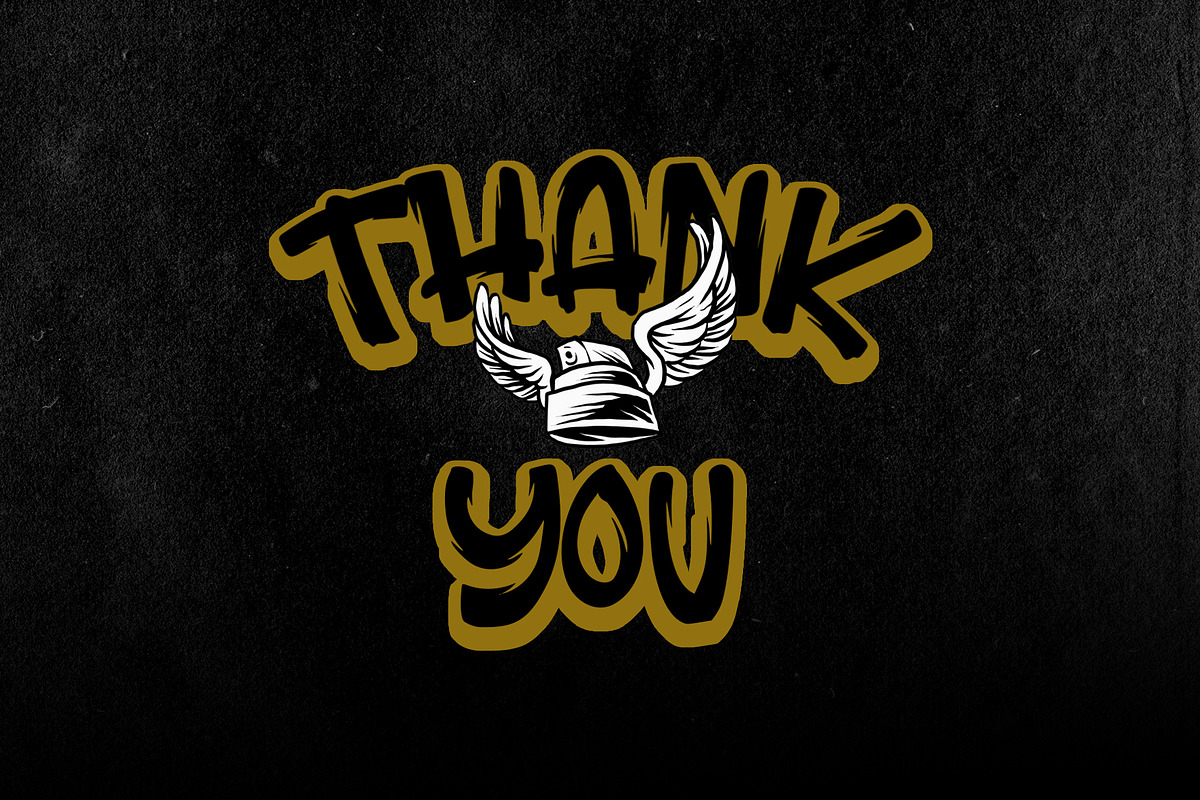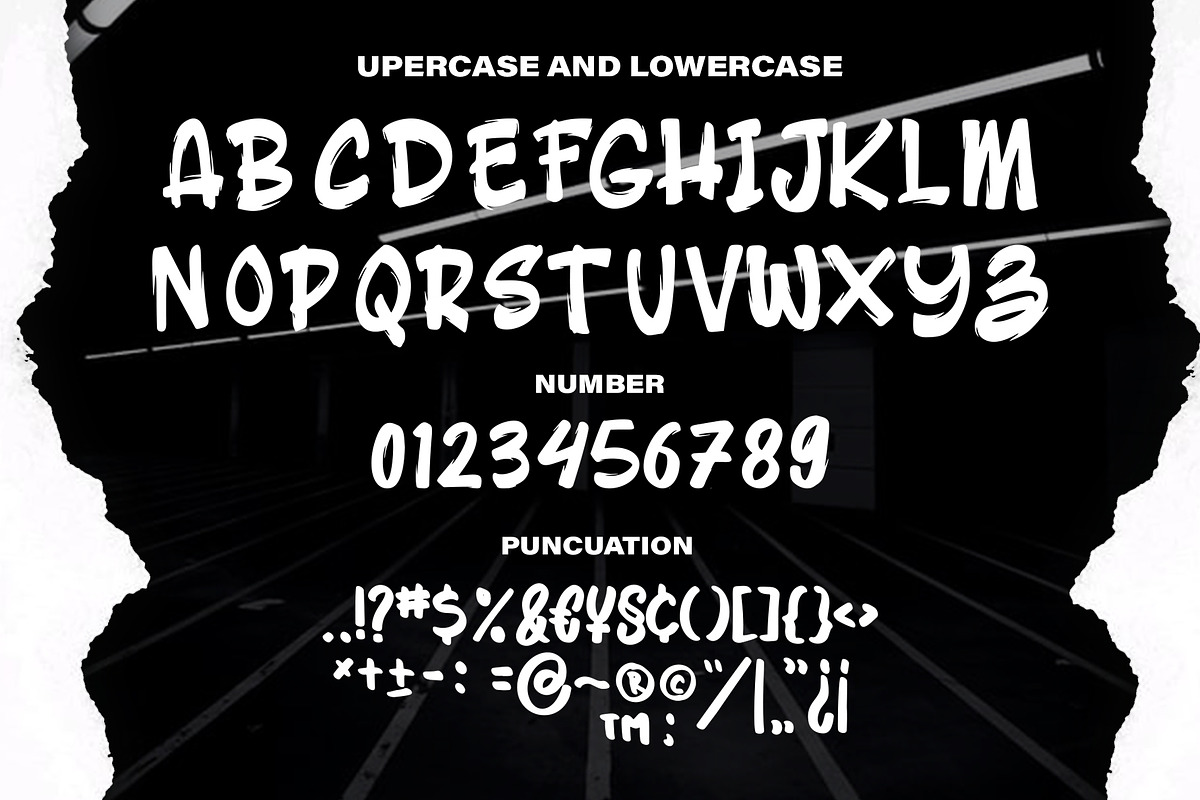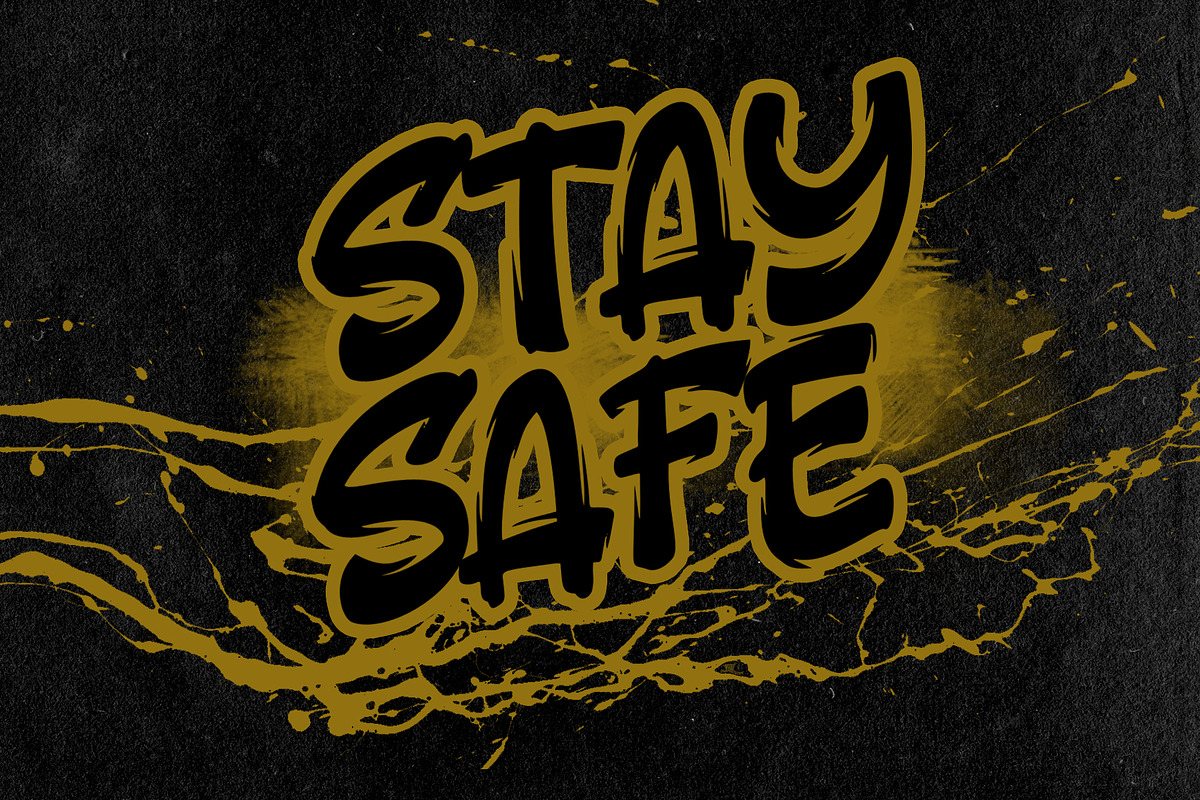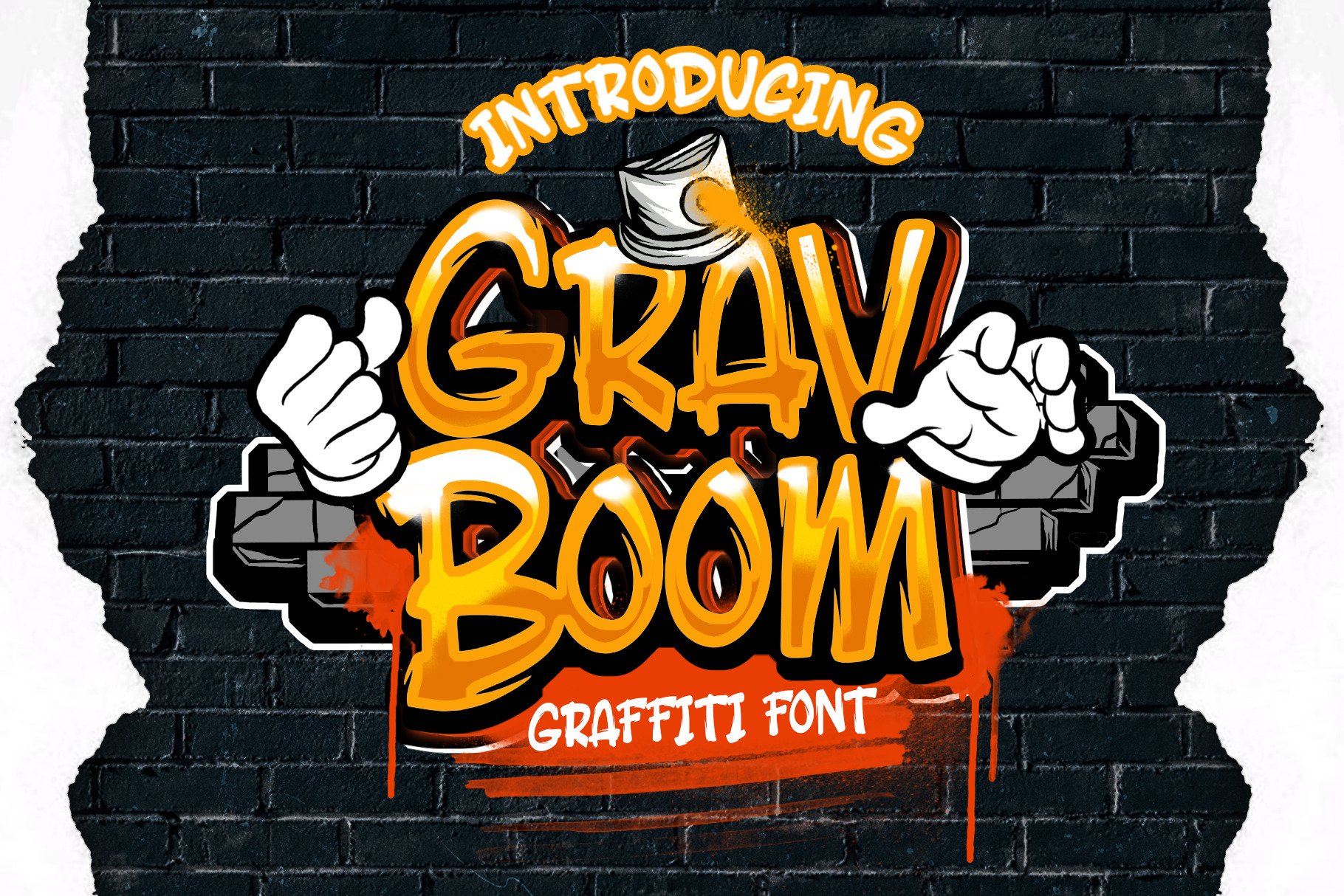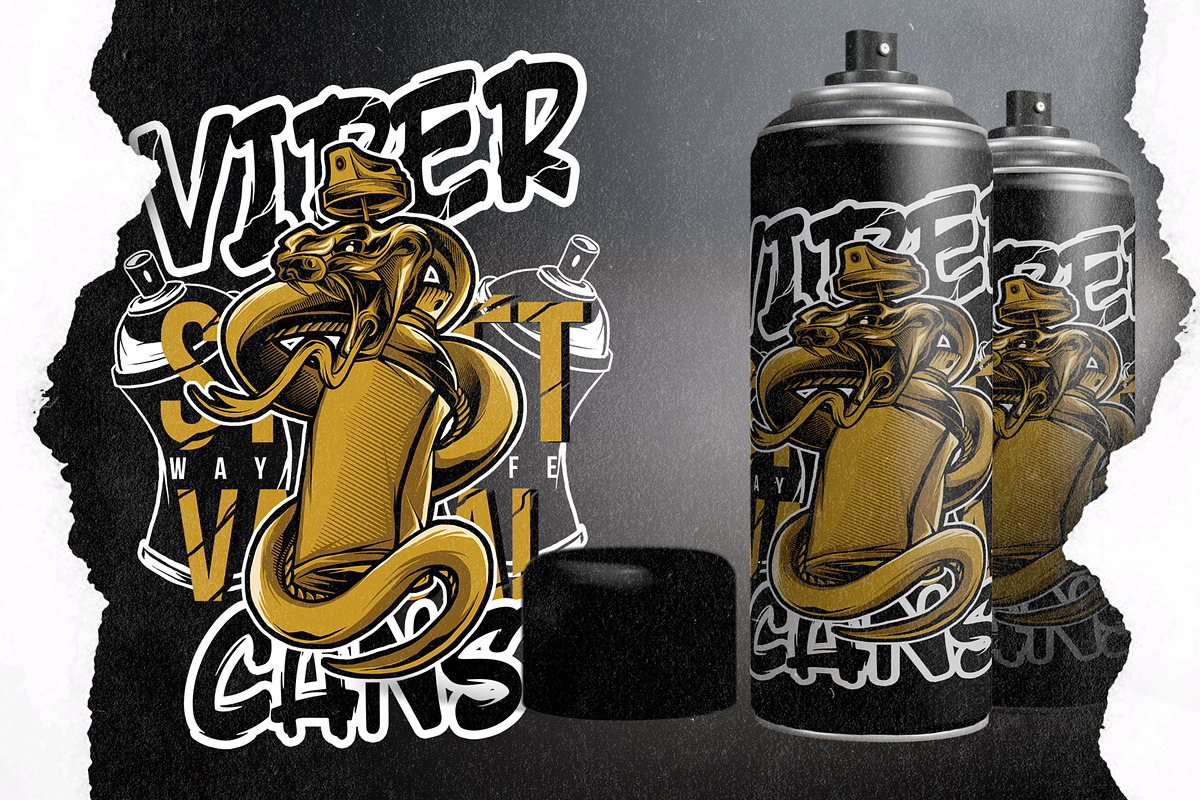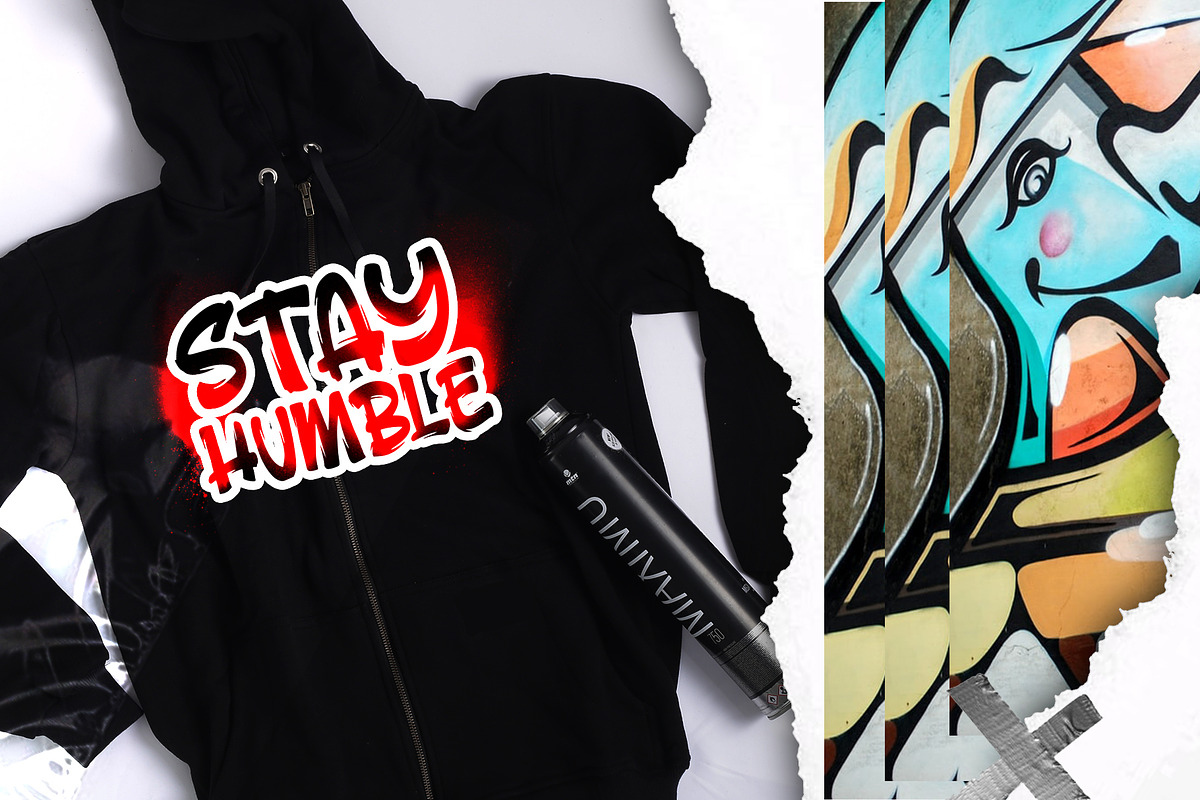
GravBOOM GRAFFITI FONT
Dansdesign Proudly present our new product GRAVBOOM GRAFFITI FONT This font is made with references to various graffiti artthat I combine and design with my style.
GRAVBOOM GRAFFITI FONT are great and usefull for product logo, poster title, headline, packaging, badge, wedding card logo, clothing brand logo,Vintage design and much more
- Character Set A-Z (Uppercase & Lowercase)